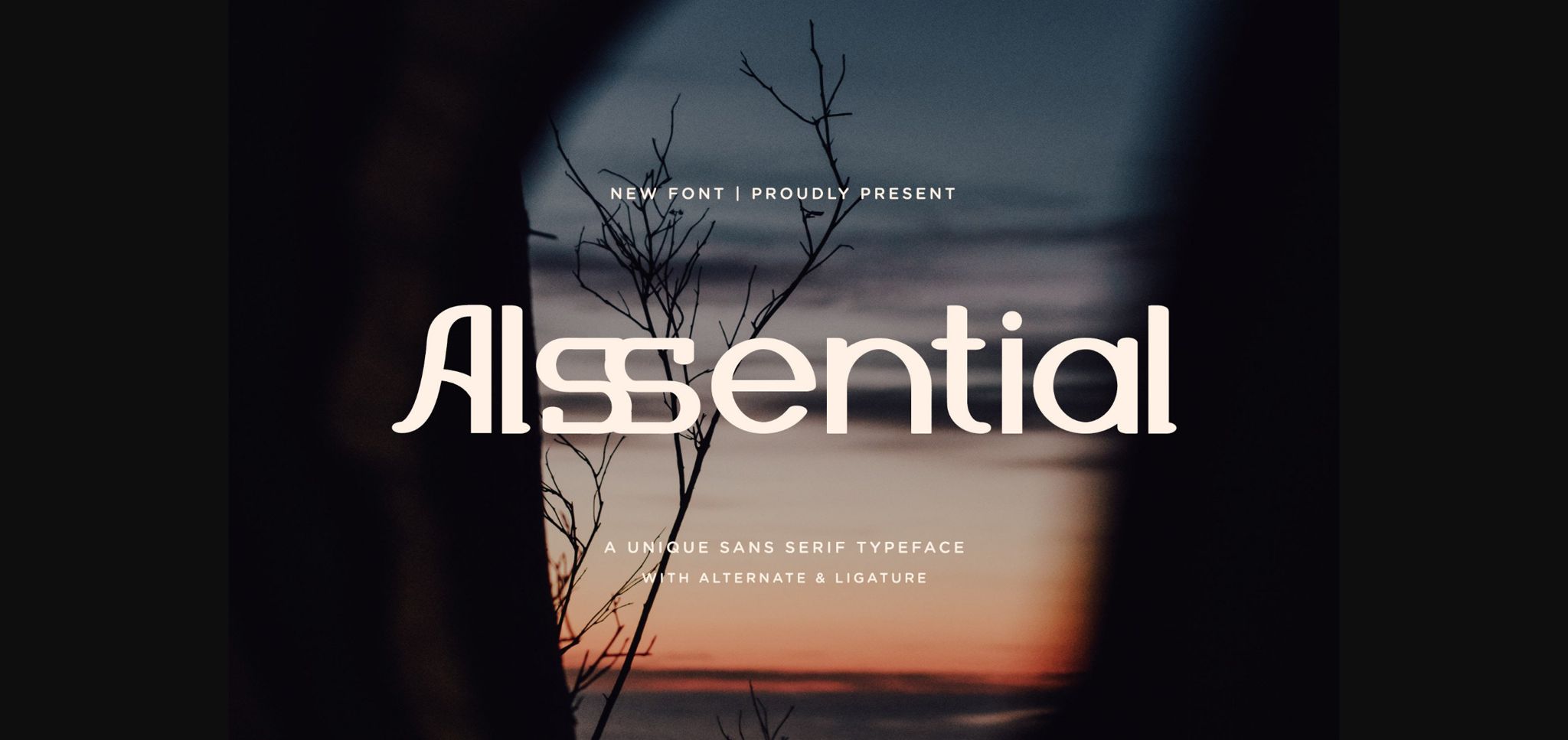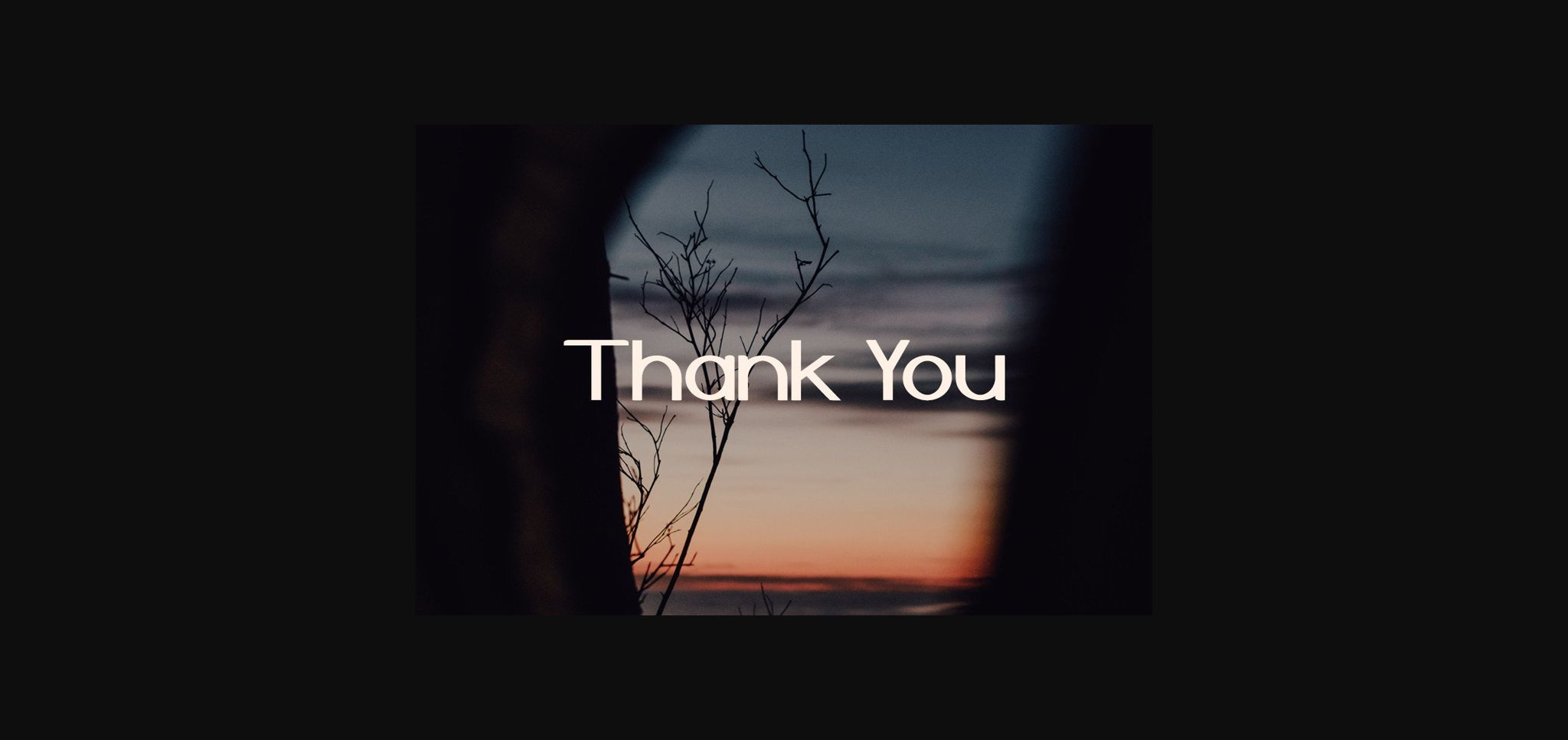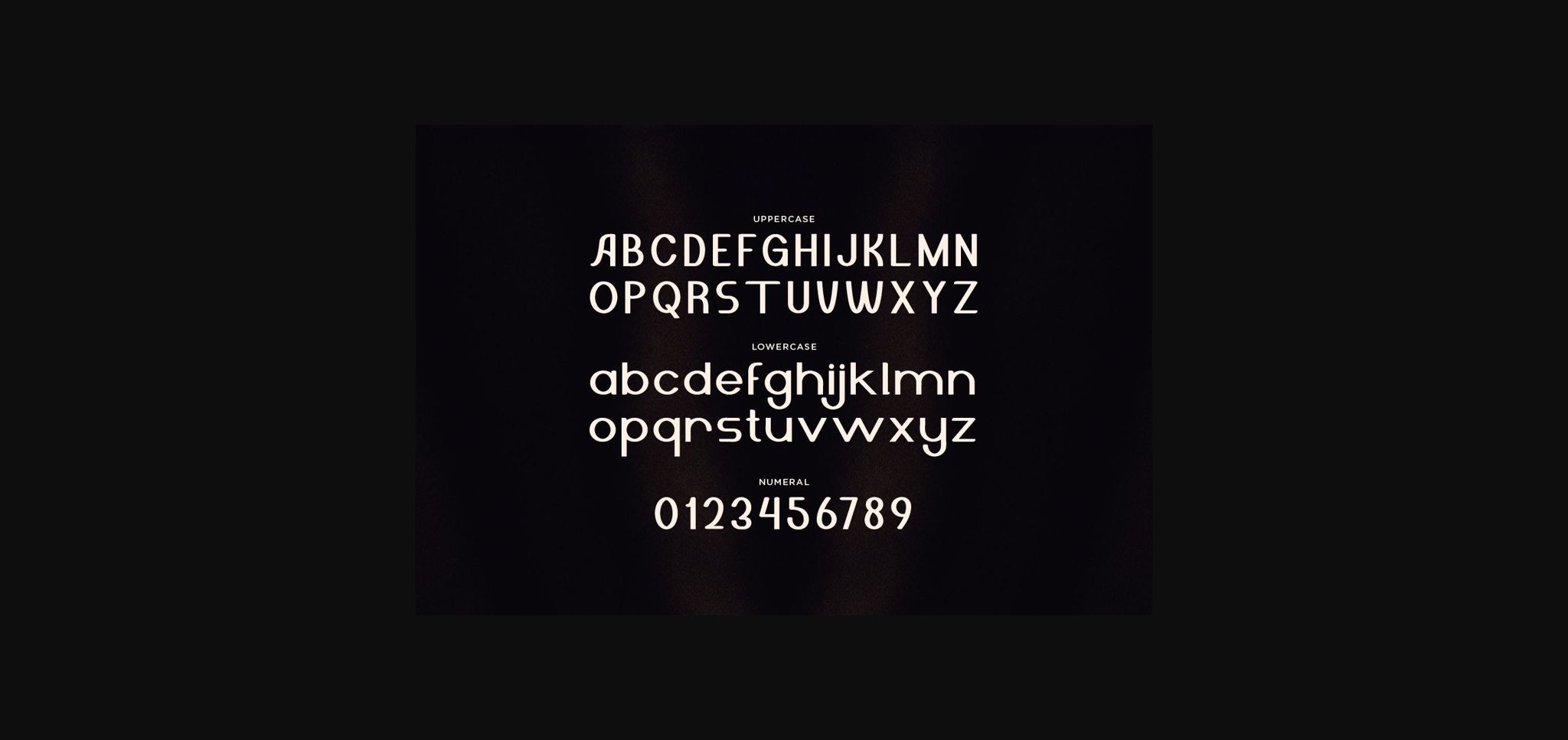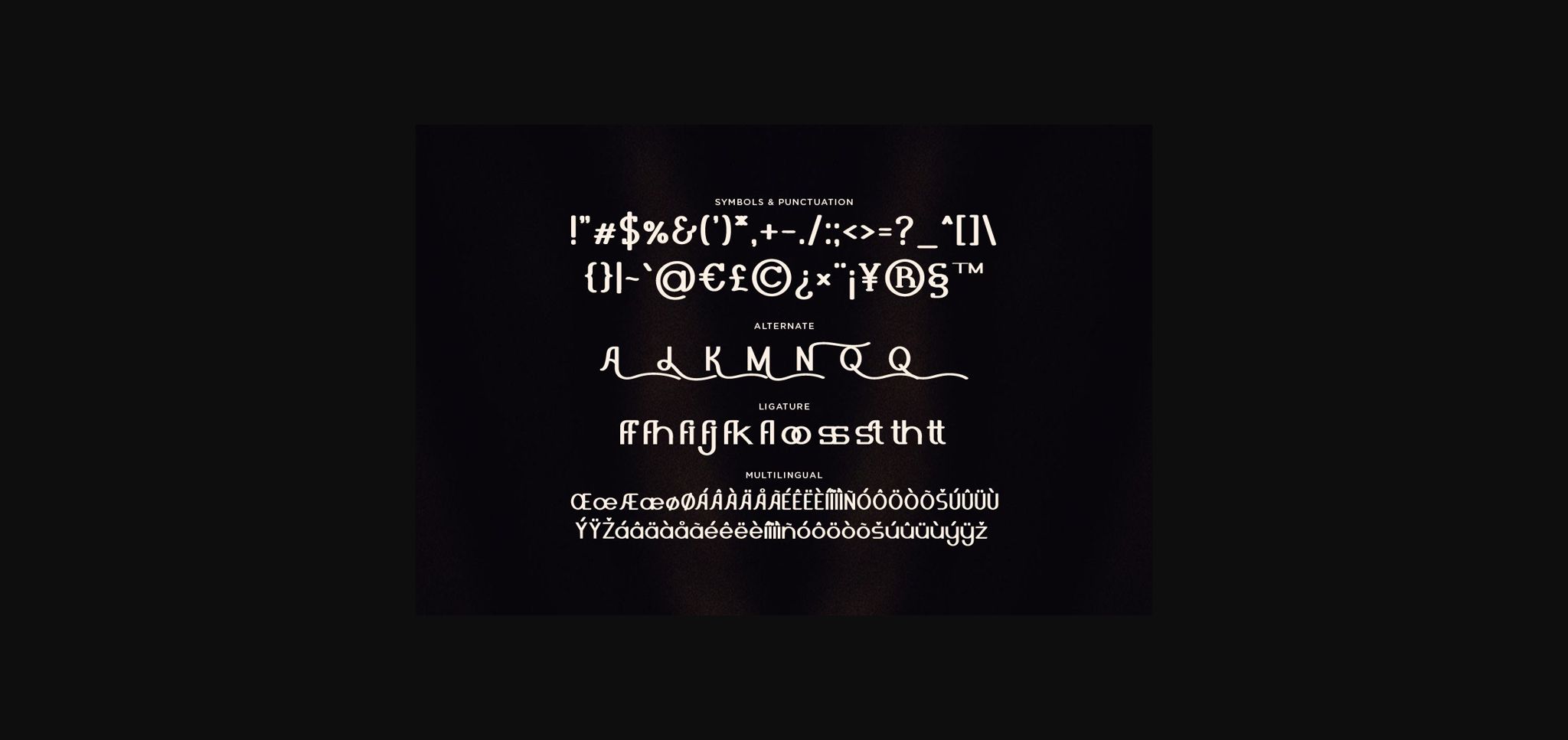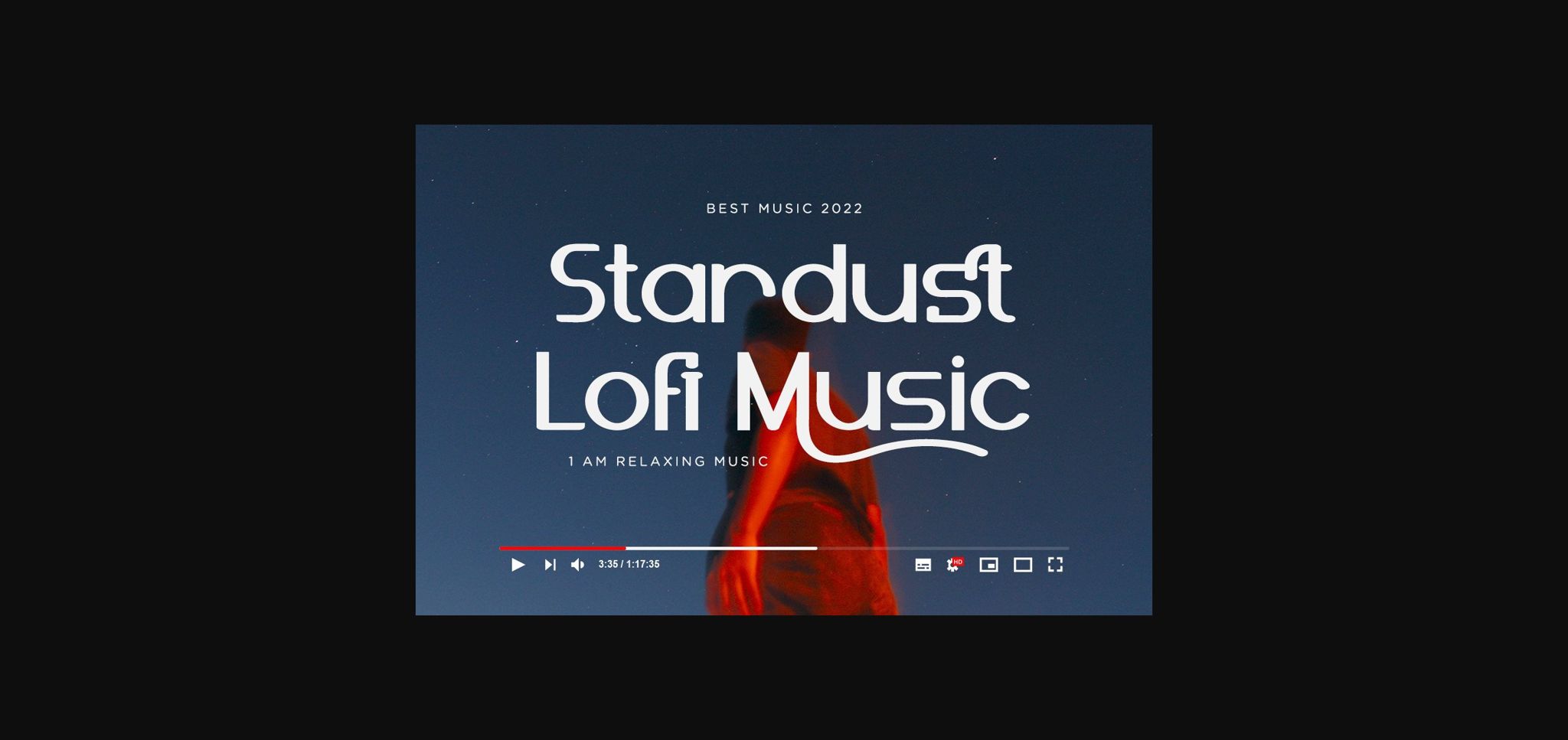
Alssential Font
About Alssential Font
Alssential is a unique sans font.
This sans font will be the ideal choice for any cool project or great design you wish to develop.